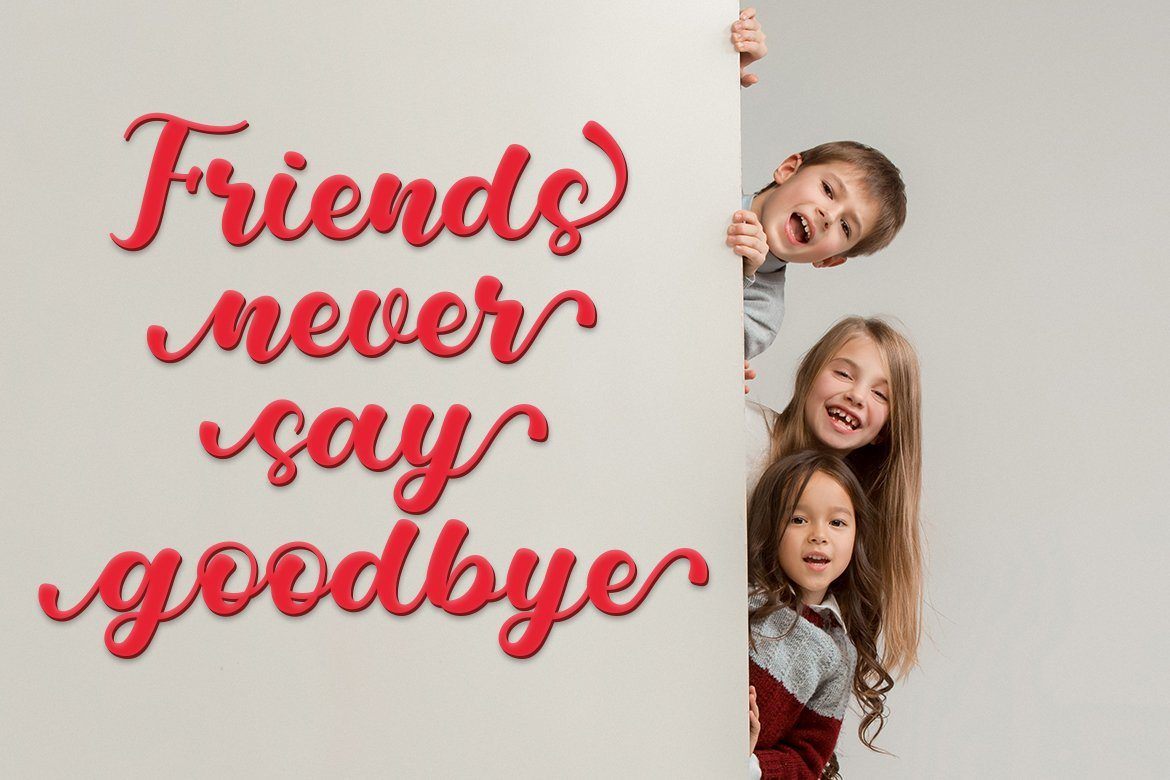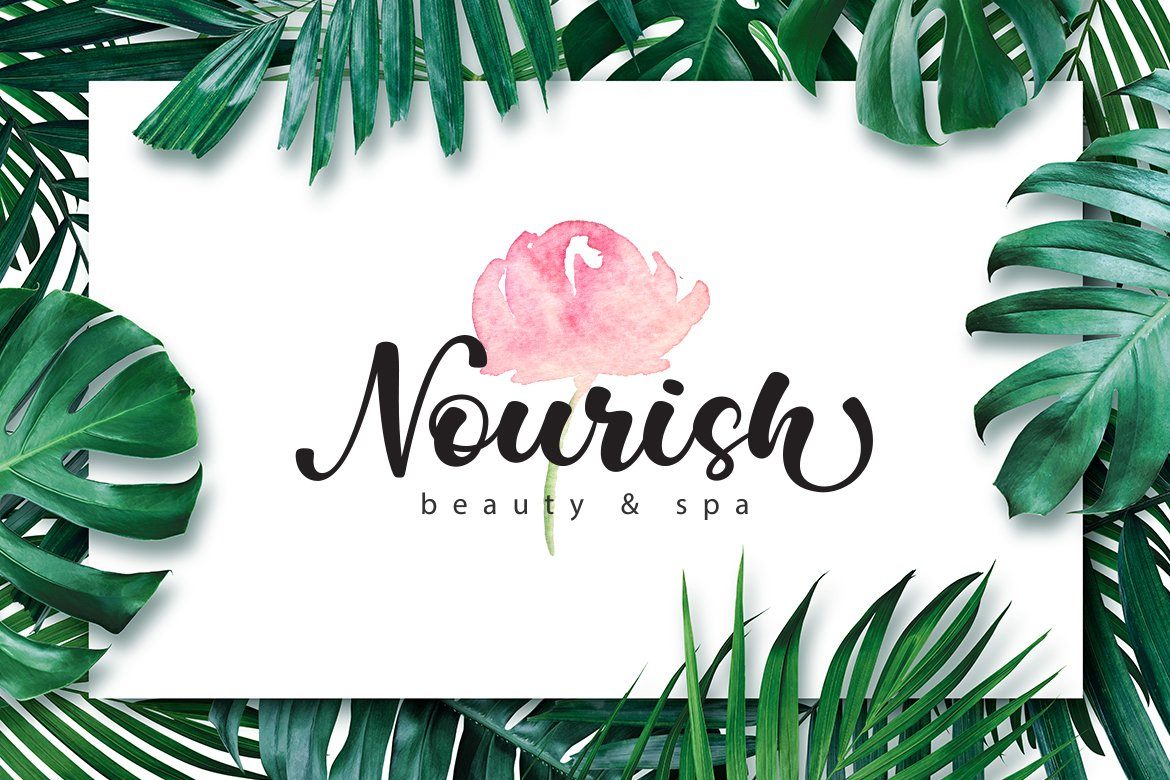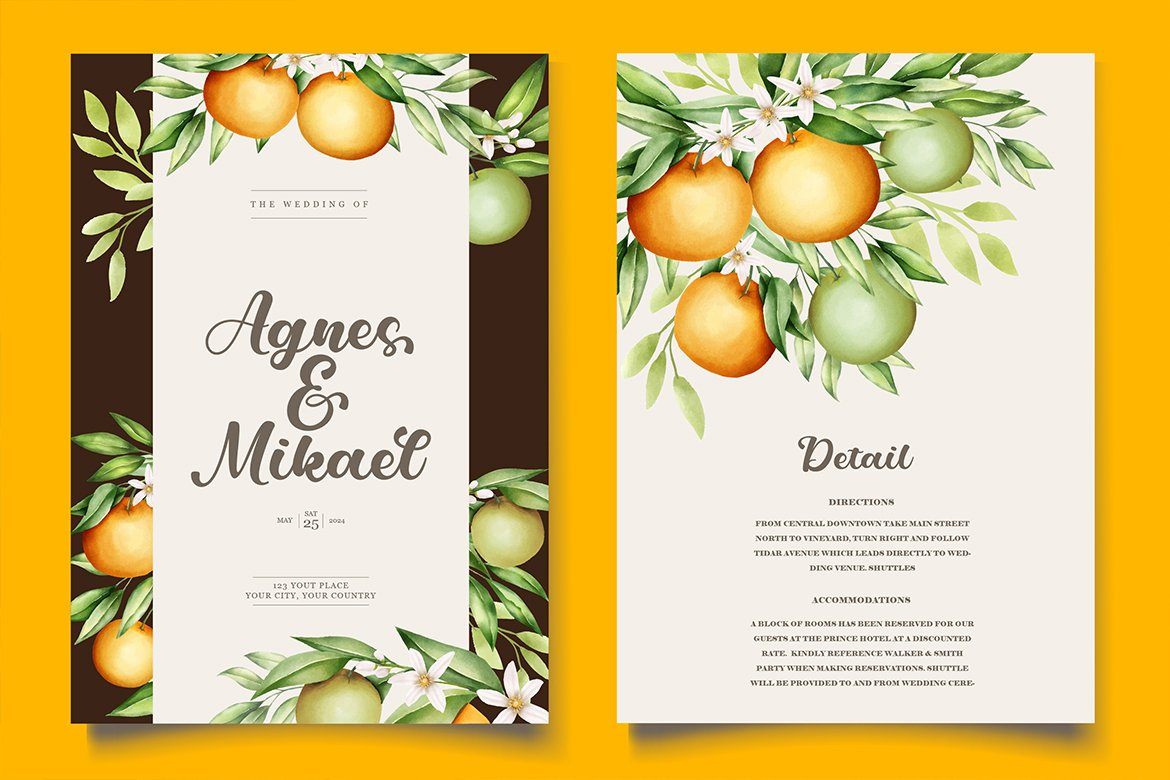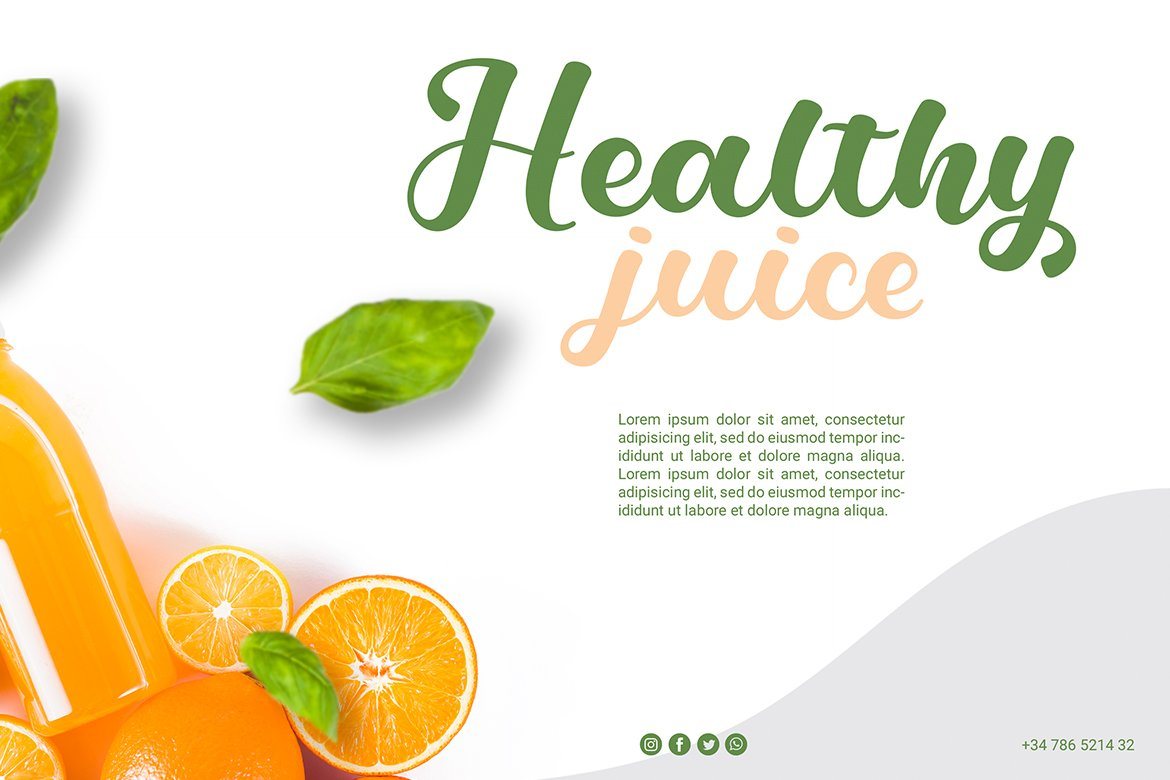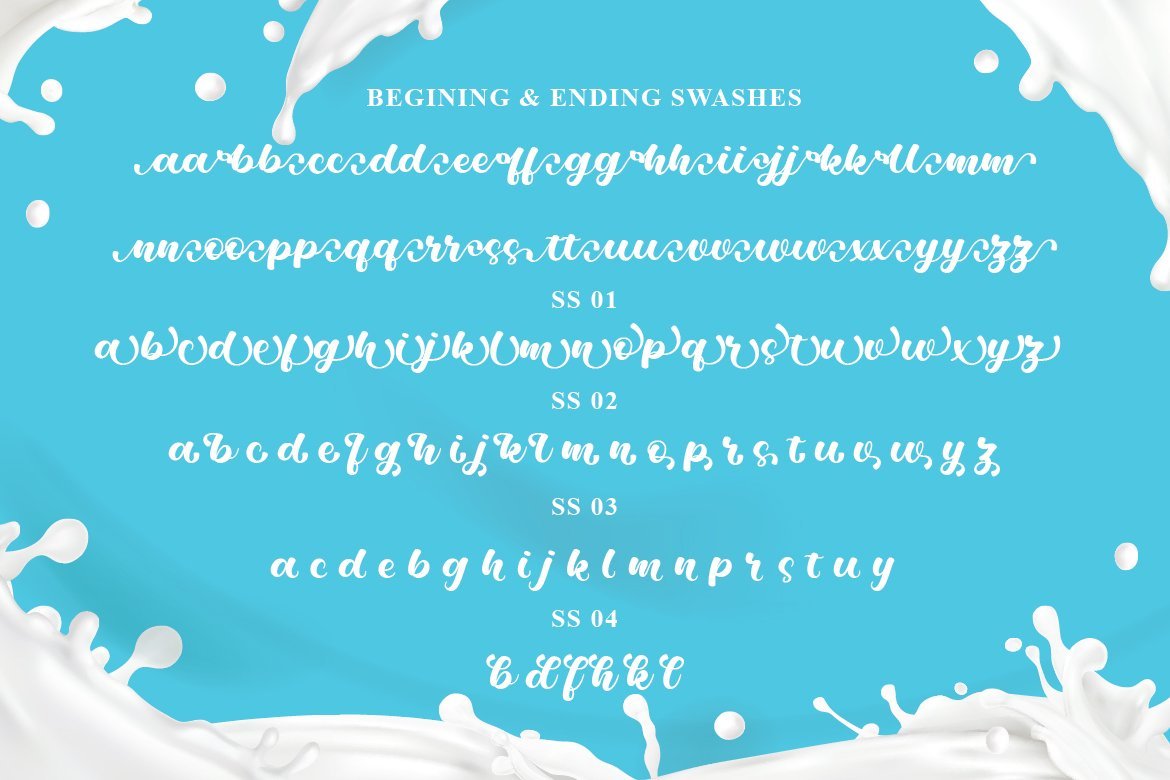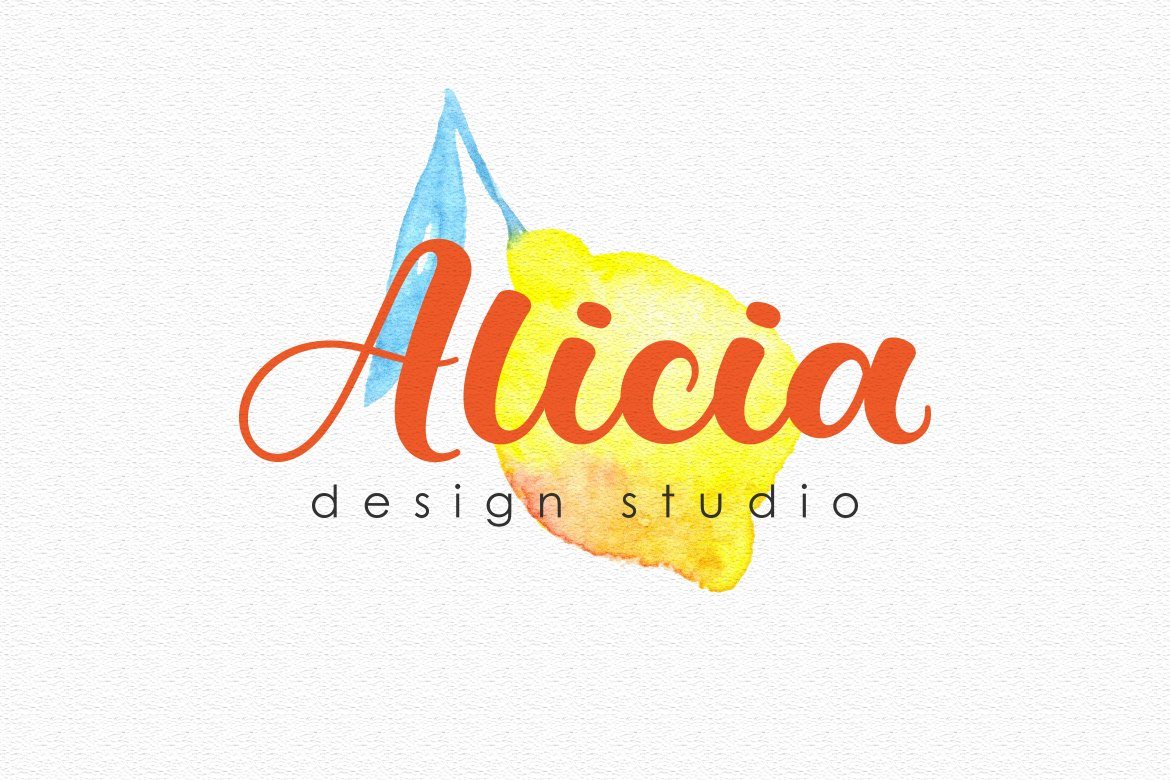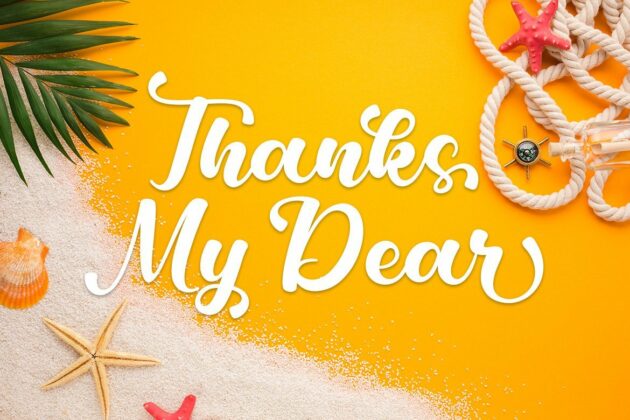
Milkshake Scriptsweet
About Milkshake Scriptsweet
Milkshake Scriptswee t is a beautiful script font with many alternative styles, this font looks natural, elegant and perfect for any extraordinary project.Milkshake Scriptsweet is suitable for various products such as invitations, product packaging, quotes, product design, crafter, labels, photography, watermarks, logos & branding.Everything can be accessed using software that supports Opentype, such as Adobe Indesign, Adobe CS Illustrator, Adobe Photoshop CC, and Corel Draw. You will get: Milkshake Scriptsweet OTF Milkshake Scriptsweet TTF Milkshake Scriptsweet WOFF Milkshake Scriptsweet Begining & Ending swash OTF Thank you đŸ™‚